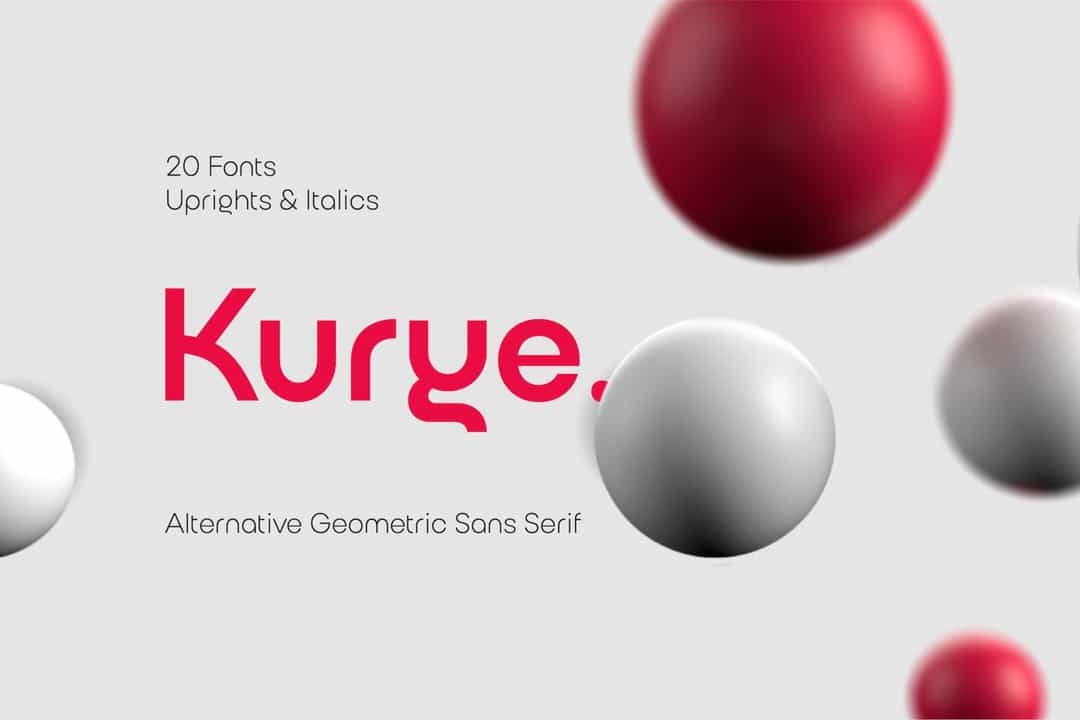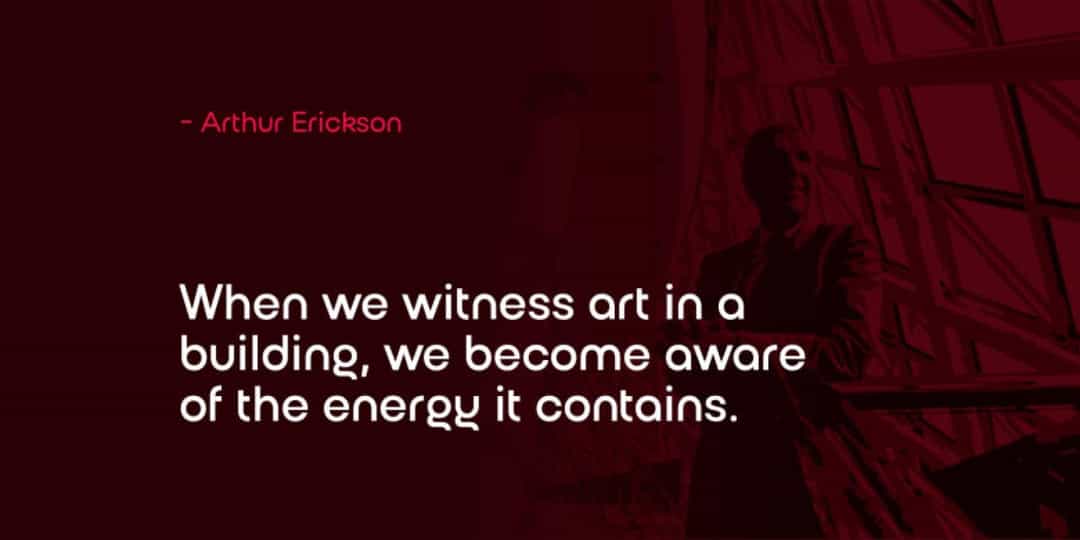
Discover Kurye Font, part of the Sans Serif collection—a versatile and unique font perfect for adding a personal touch to your projects. Download it for free and enjoy crafting designs with style, from invitations to social media posts. This font is available exclusively for personal use, giving you the freedom to create without limits. Unlock your creativity with Kurye Font today!
Kurye is an elegant and emotive font with an emotional feel. Choose its wide collection of fonts for catalogue, magazine, brochure designs, furniture or architectural presentations to give them an aesthetic and distinctive design aesthetic. In addition, Kurye includes ligatures as well as multilingual support if necessary.